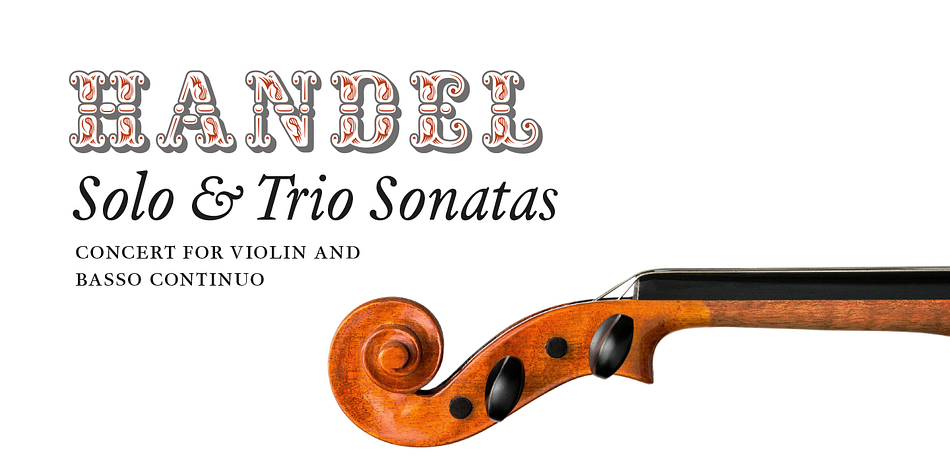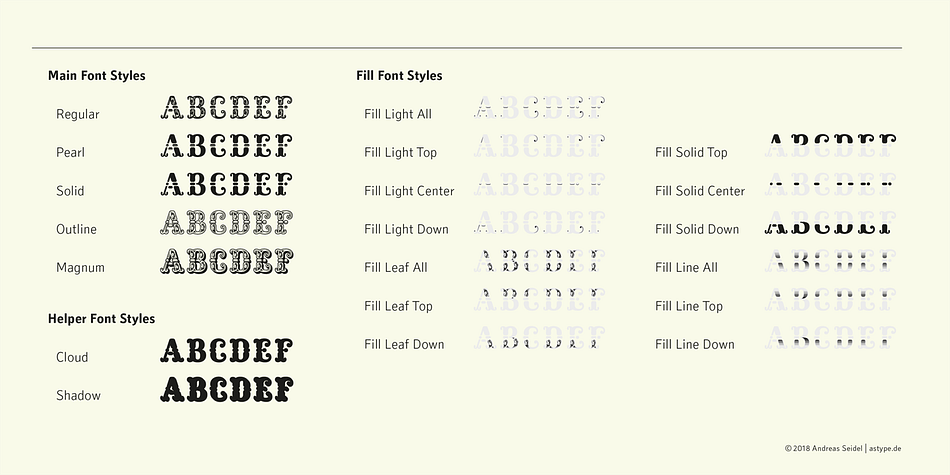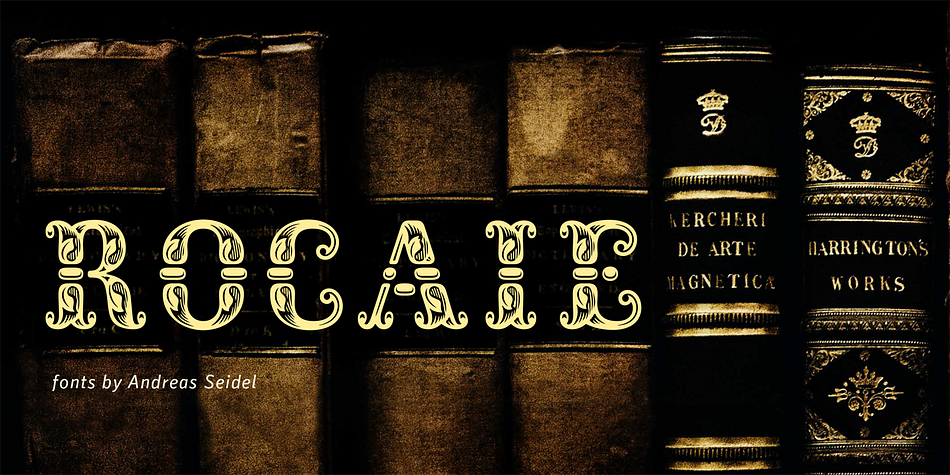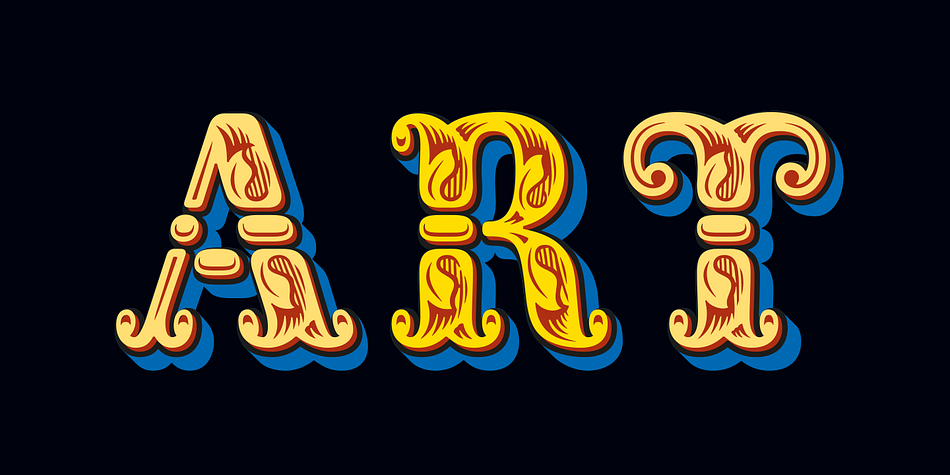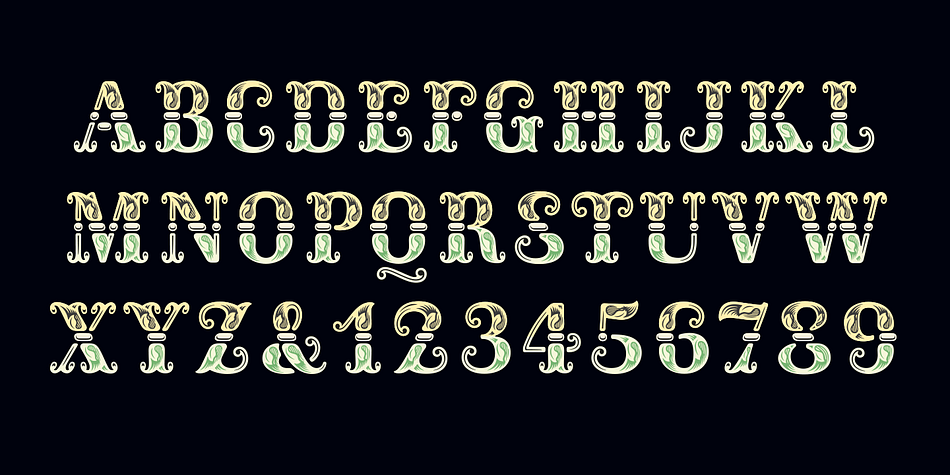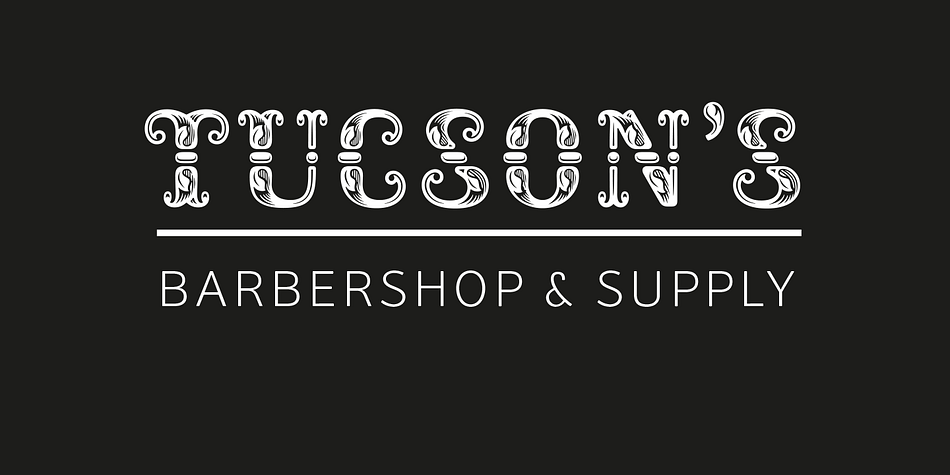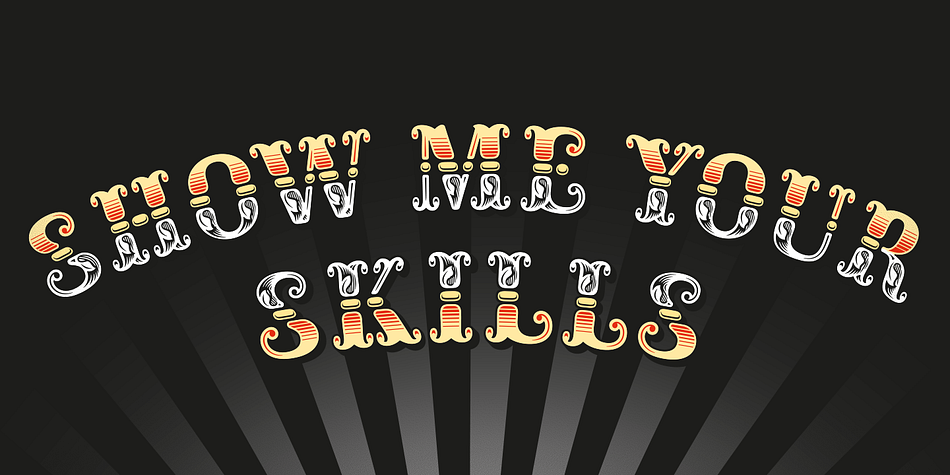
Designed by Andreas Seidel, Rocaie is a western and display serif font family. This typeface has twenty styles and was published by Astype.
The Rocaie fonts are based on antique Rococo letters from an gilding workshop. I was very lucky to acquire this set of metal letters in early 2018. Each of the letters has ornaments engraved by hand into its cast brass shapes.
When drawing the digital outlines, I tried to preserve the handmade look of the original leaf engravings. Each of the letters uses a slightly different ornament pattern: no pattern is repeated identically. I expanded the very limited character set of the original.
I made additional font styles to easily add colour layers, outlines, and 3D shadows to the typeface. It’s up to you to decide how to “build” your colour font! You can combine the predefined font styles Regular, Pearl, Solid, Outline, and Magnum with each other, or with the Fill font styles. But you don’t need to use all font styles to compose something nice!
Have as much fun as I did with this Baroque beauty and enjoy the vintage.